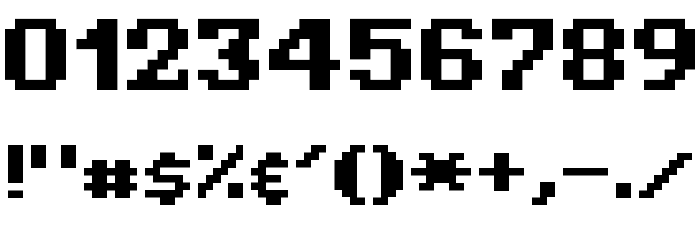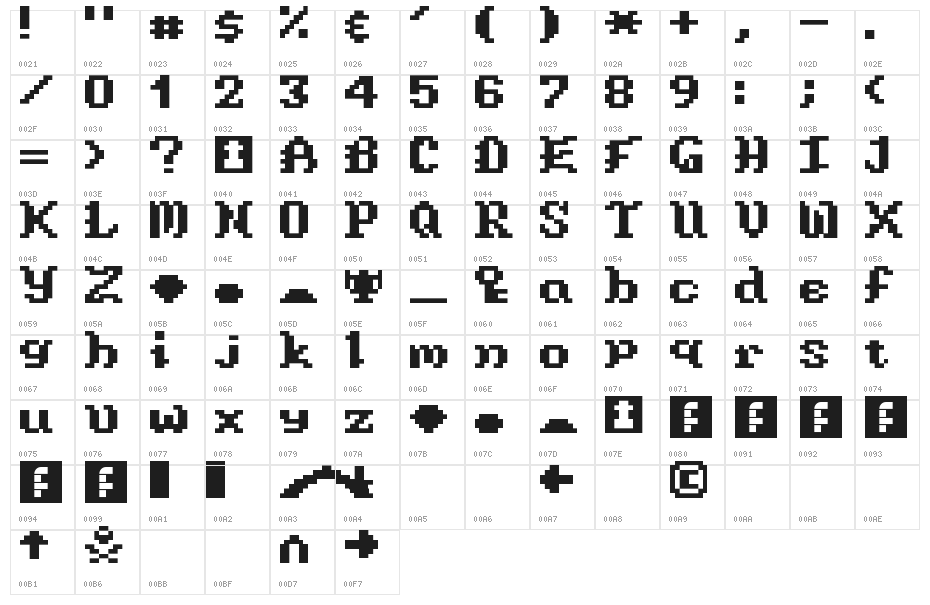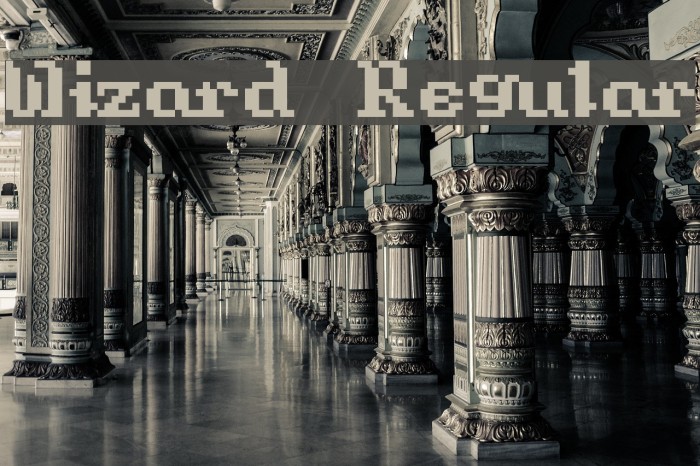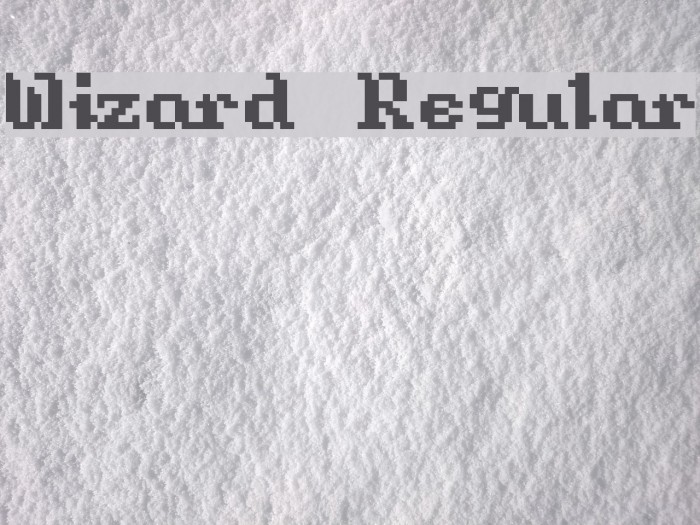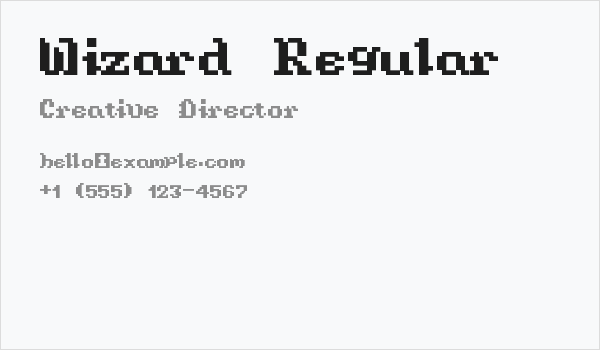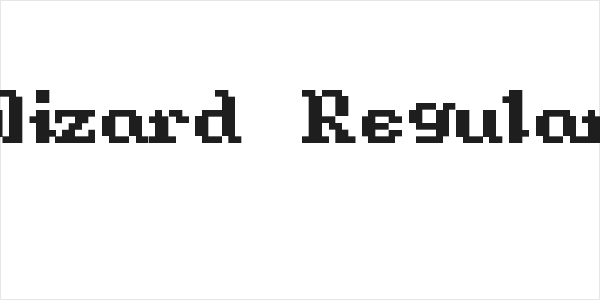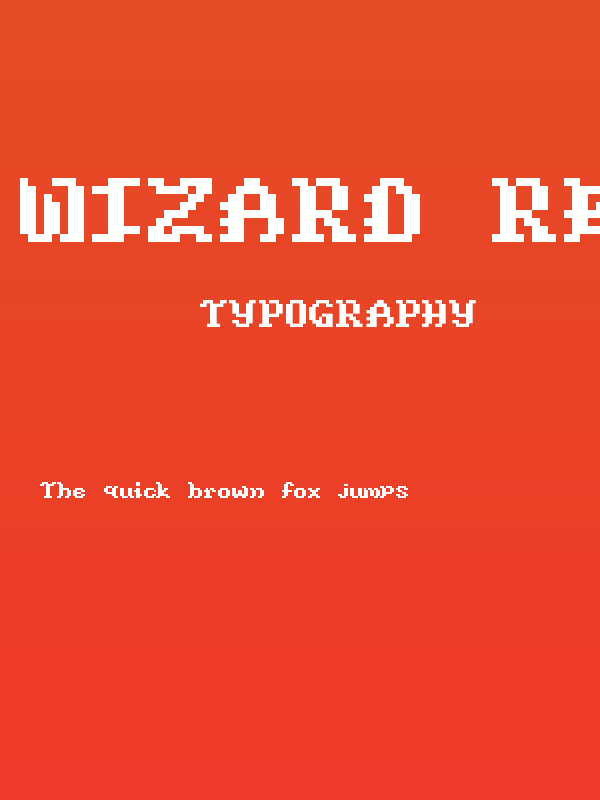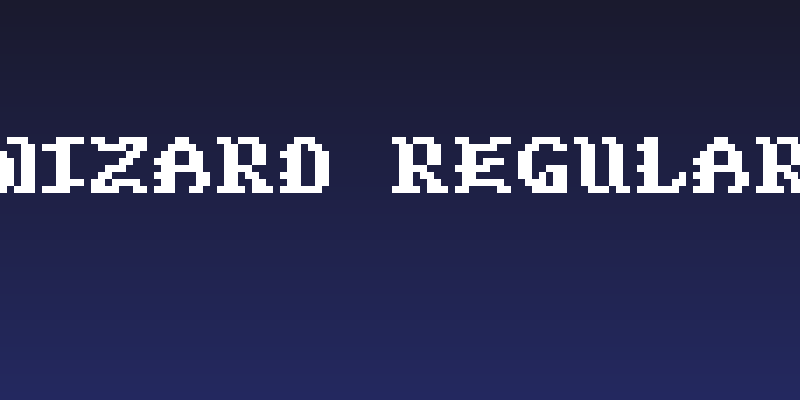
Wizard Regular Font
Wizard Regular Description
This font features a pixelated, blocky style reminiscent of early digital or video game typography. Each character is composed of distinct square blocks, giving it a retro, digital aesthetic. The uppercase and lowercase letters maintain a consistent height, with a uniform width that contributes to its monospaced appearance. The numbers and special characters follow the same design principles, ensuring a cohesive look across all glyphs. This font's unique style makes it stand out, particularly in digital or retro-themed projects.
| Use Case | Headlines, Logos, Digital Art |
| Proposed Projects | Ideal for video game design, digital art projects, retro-themed posters, and any creative work that requires a nostalgic digital feel. |